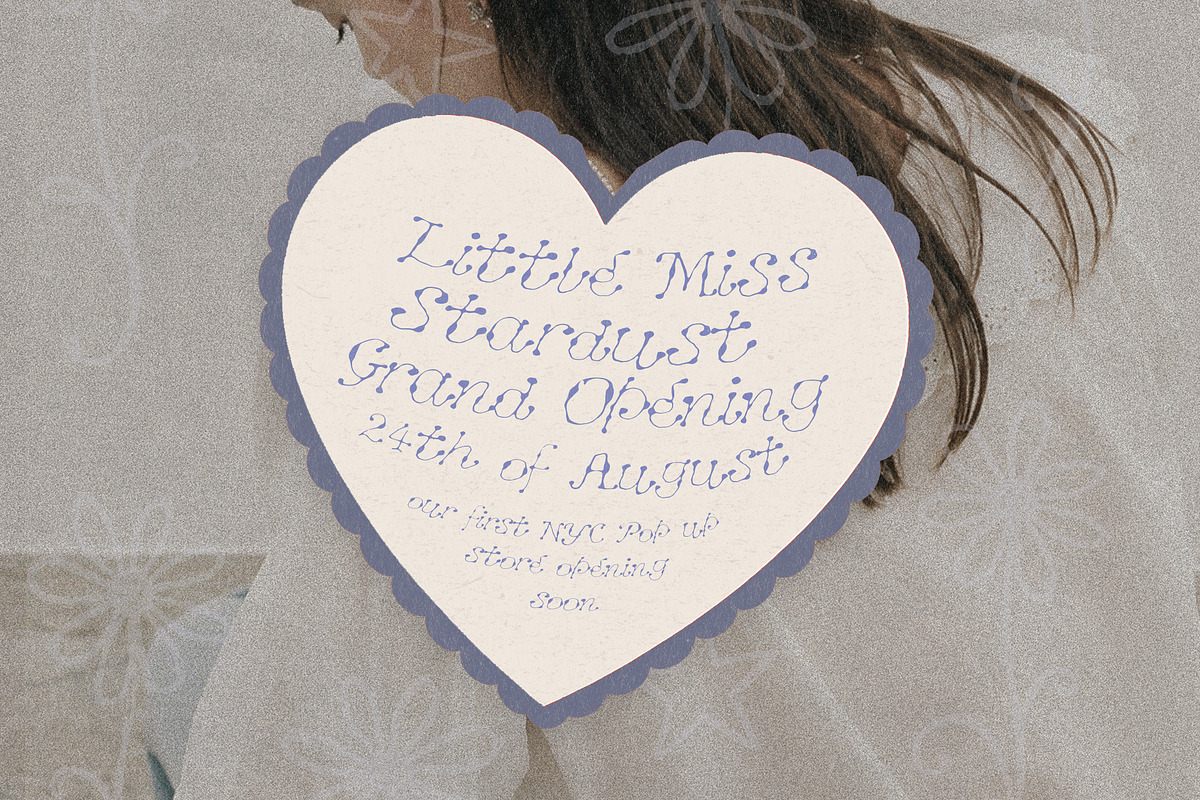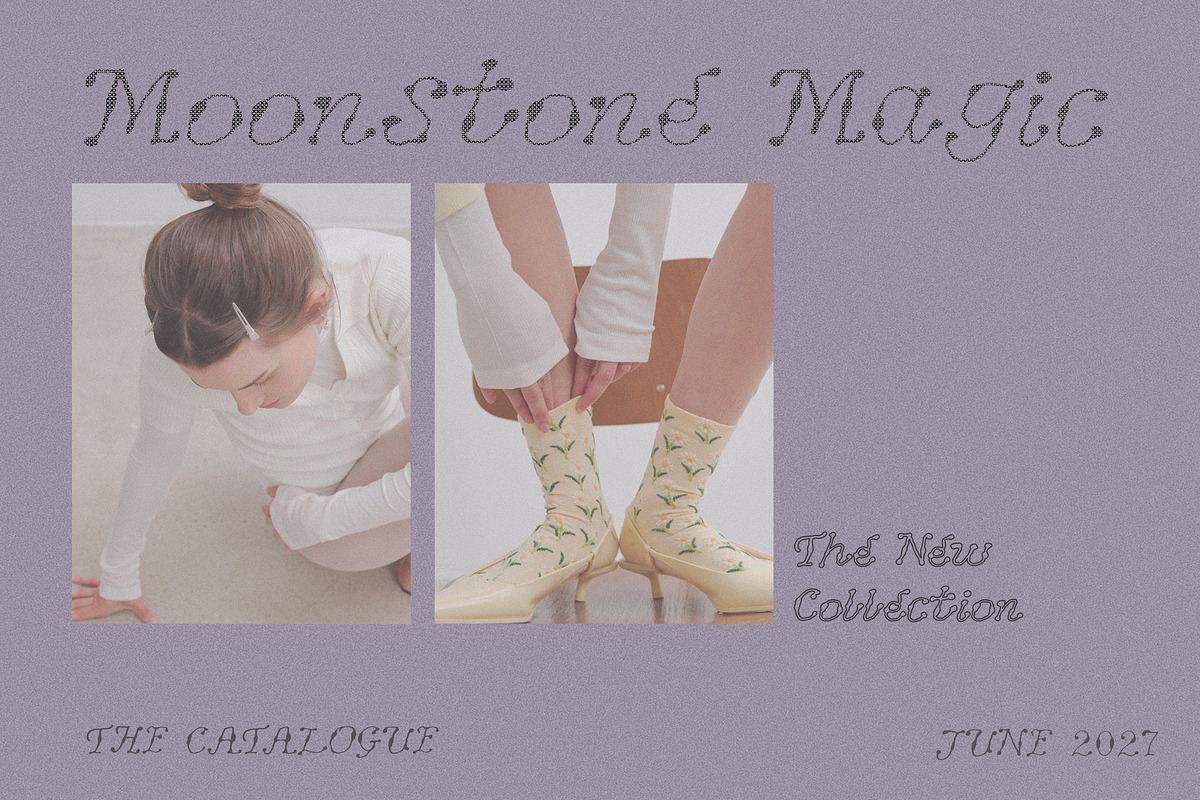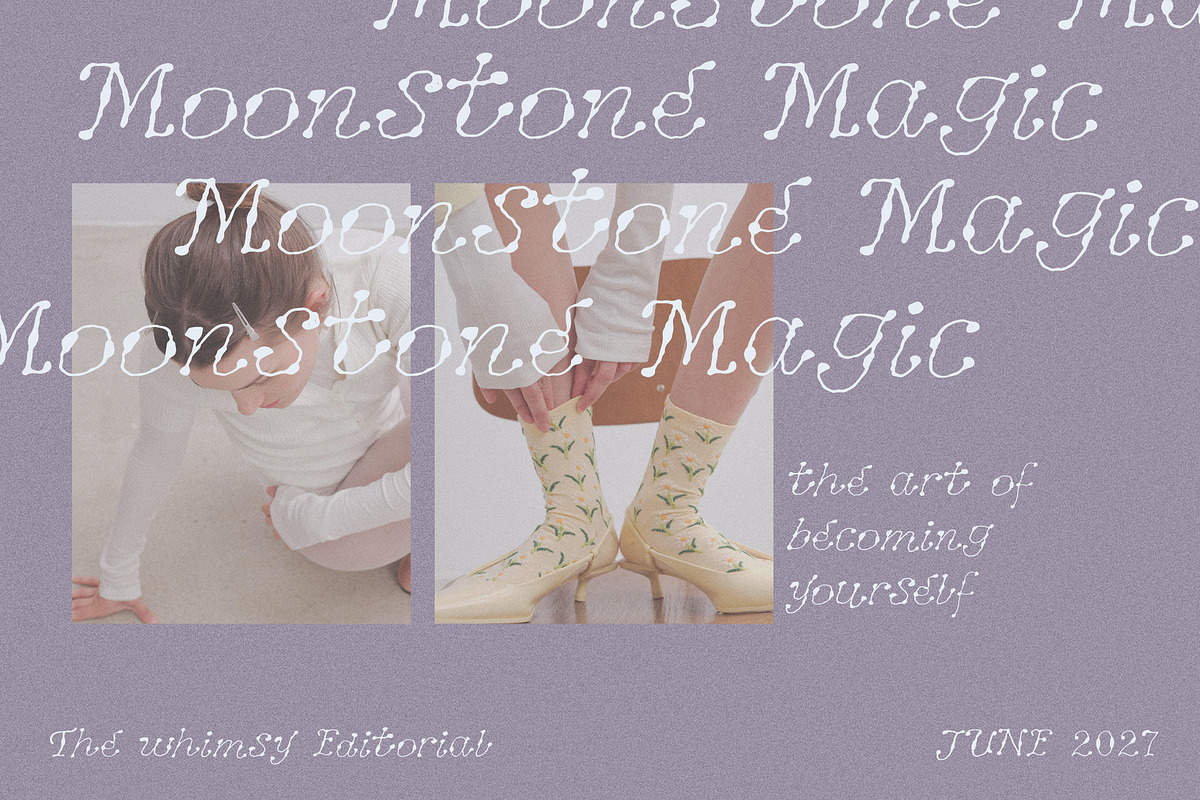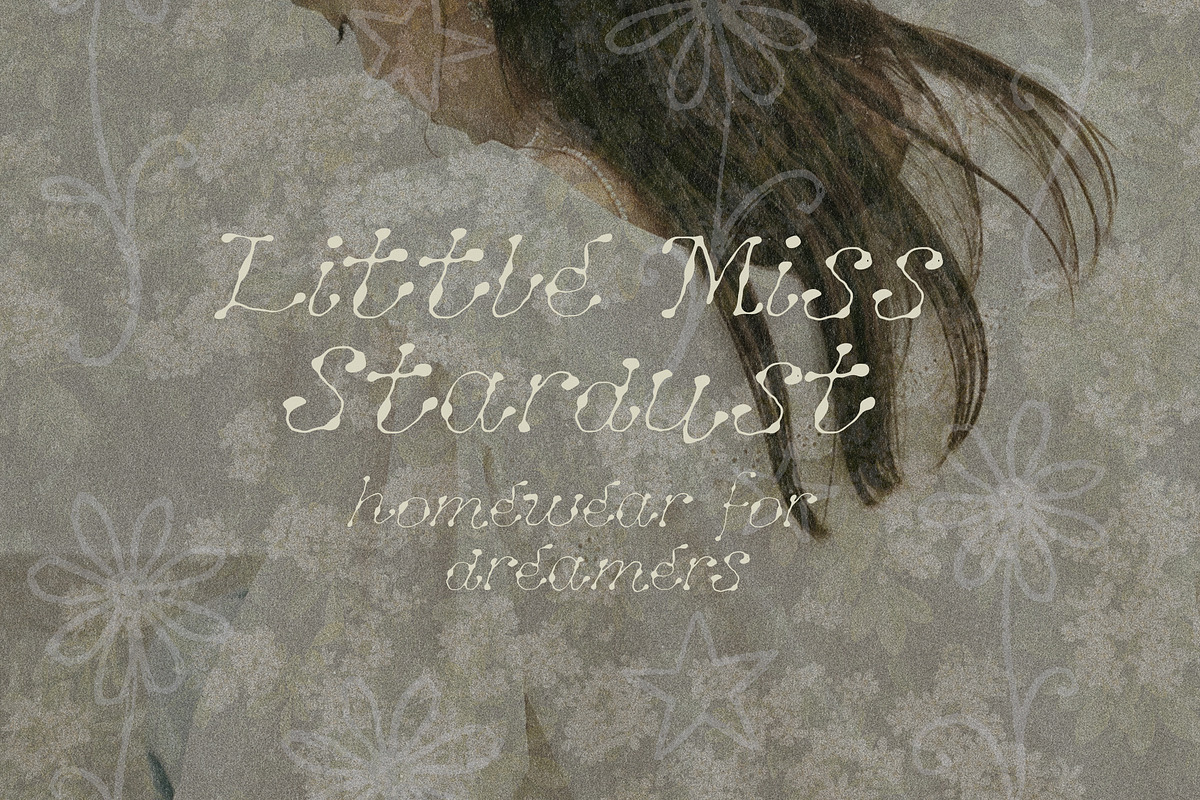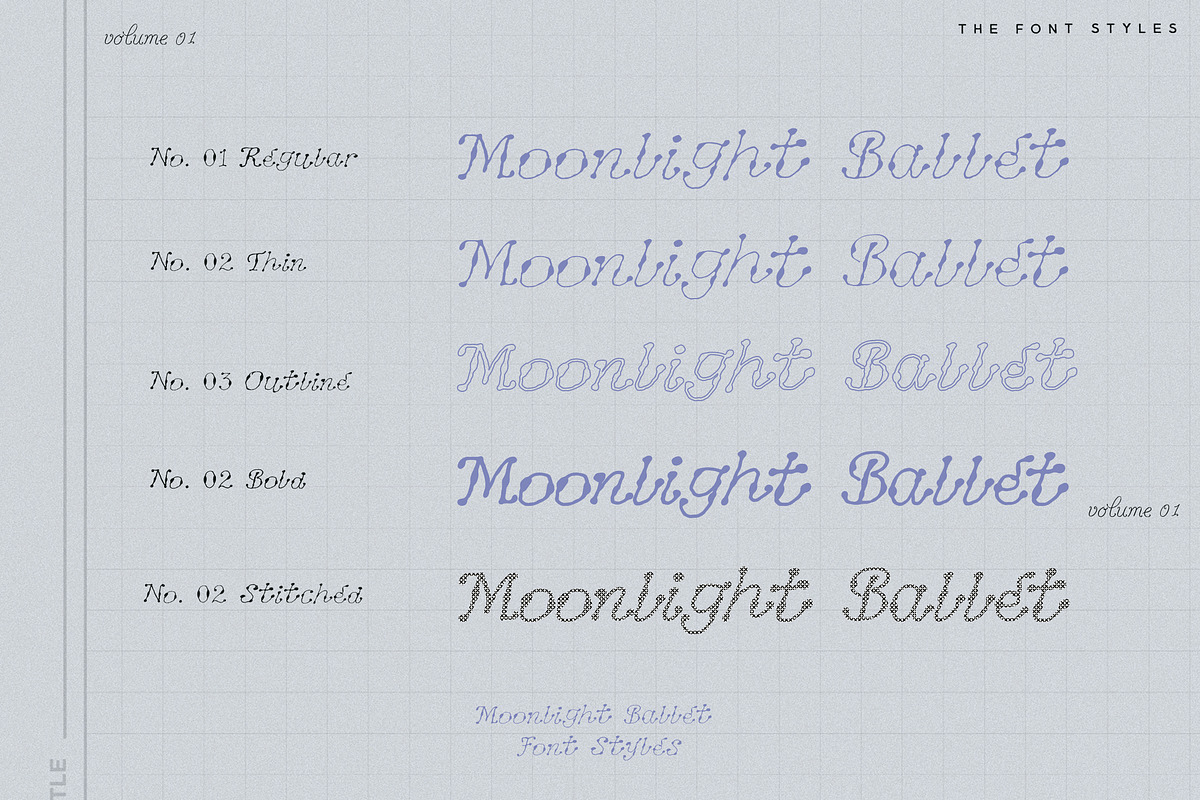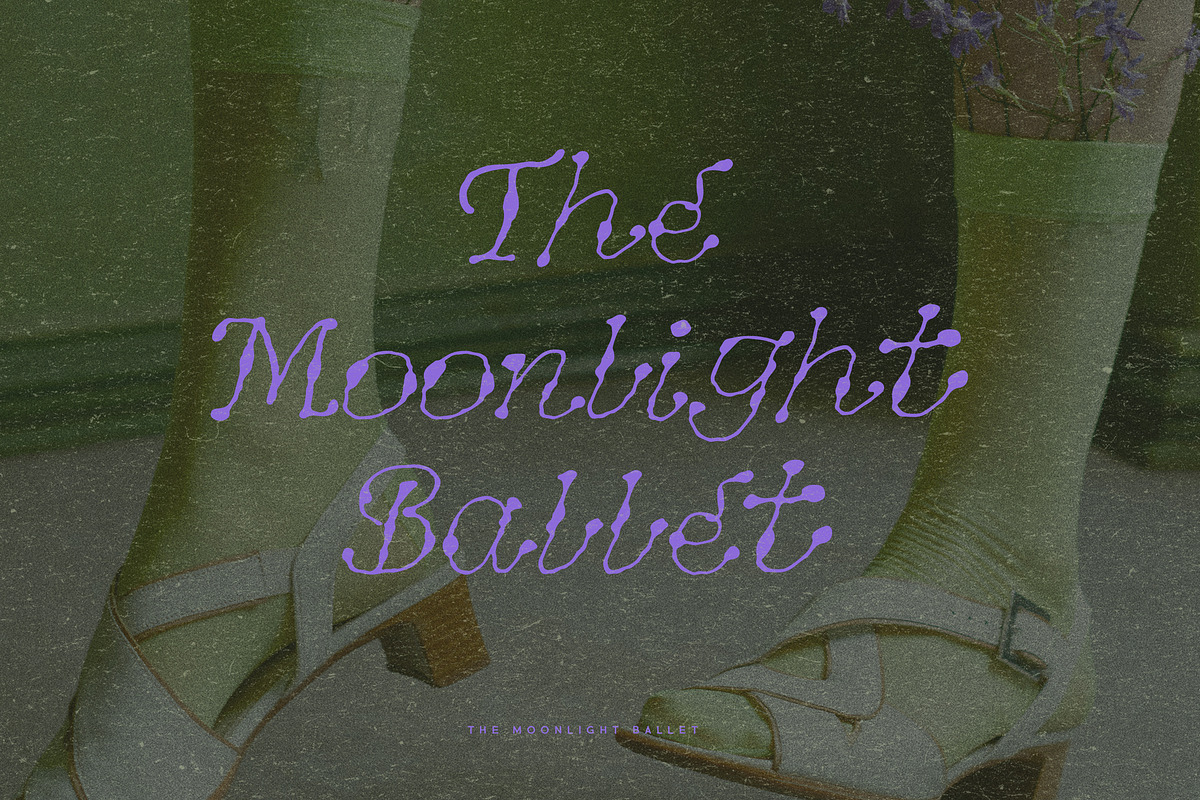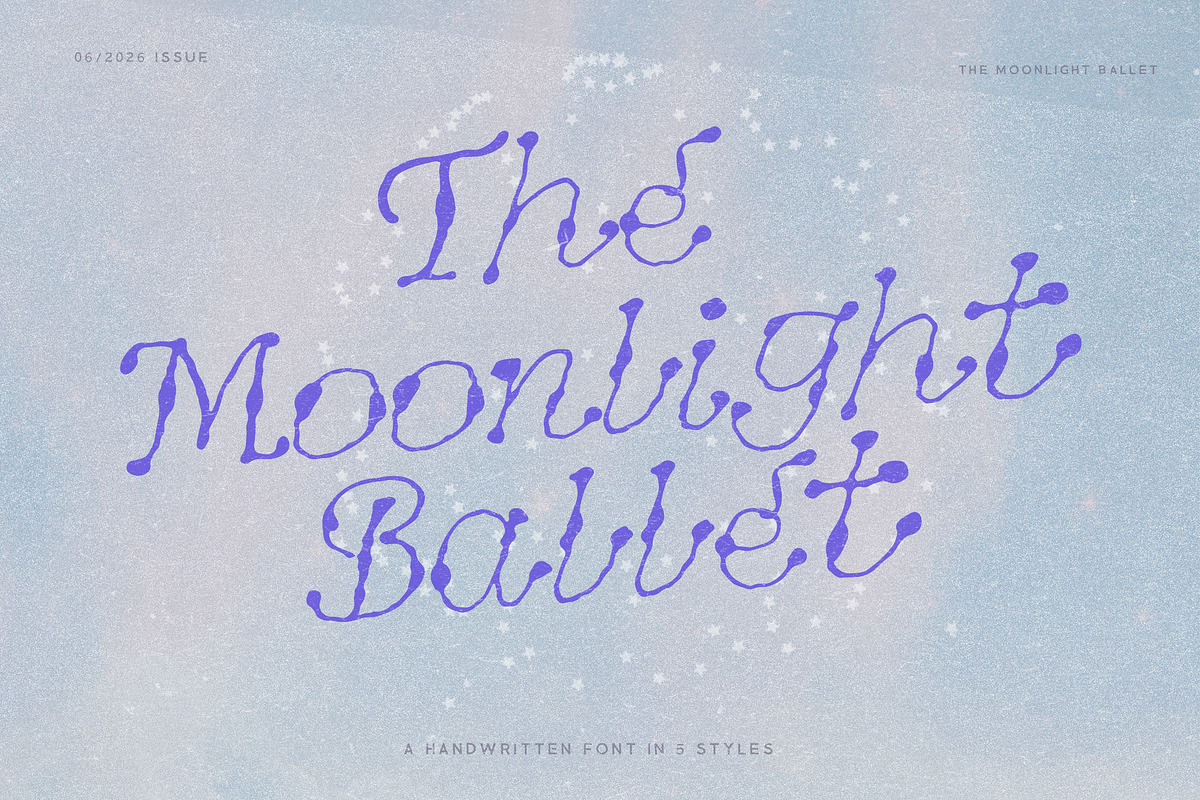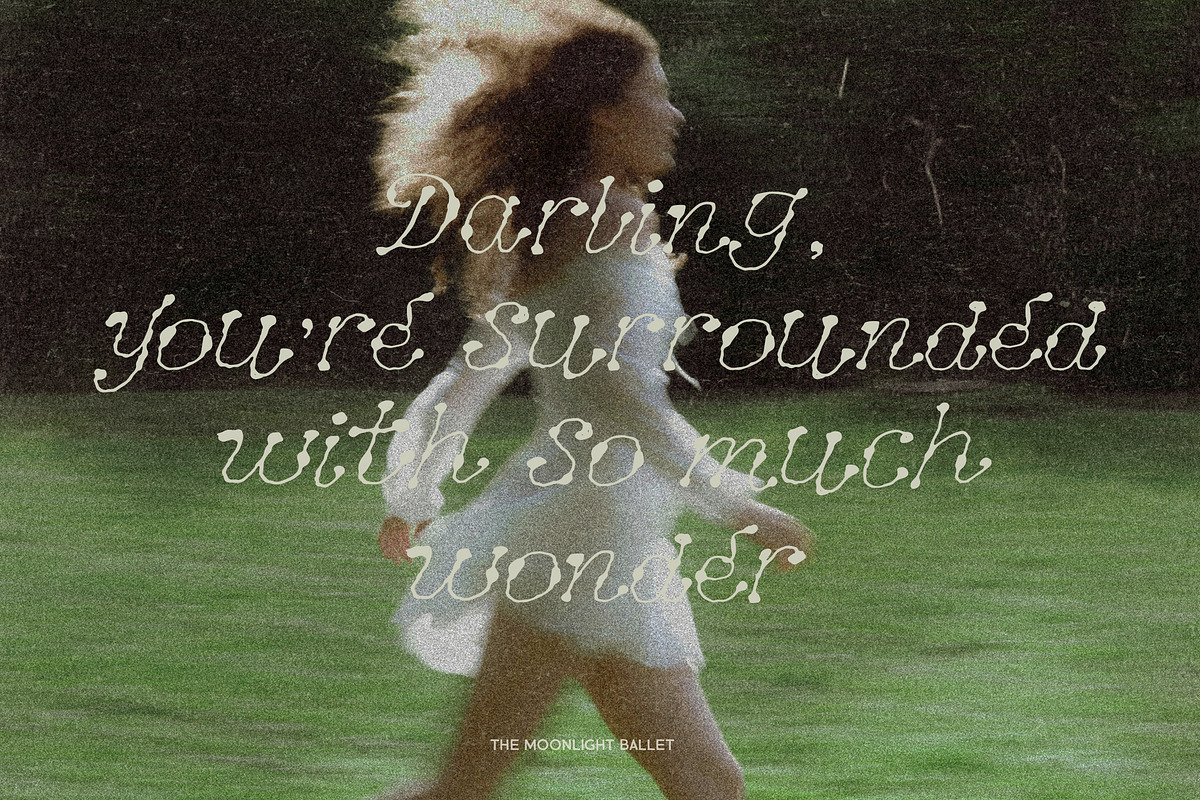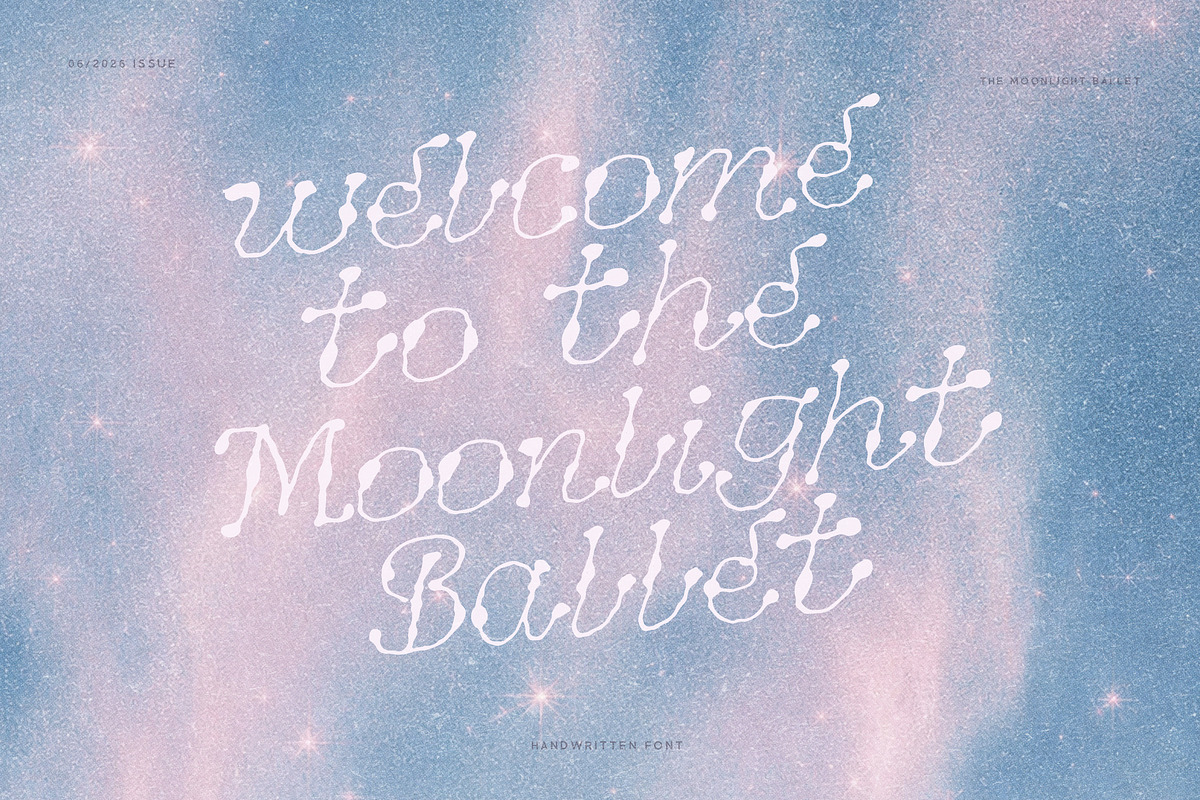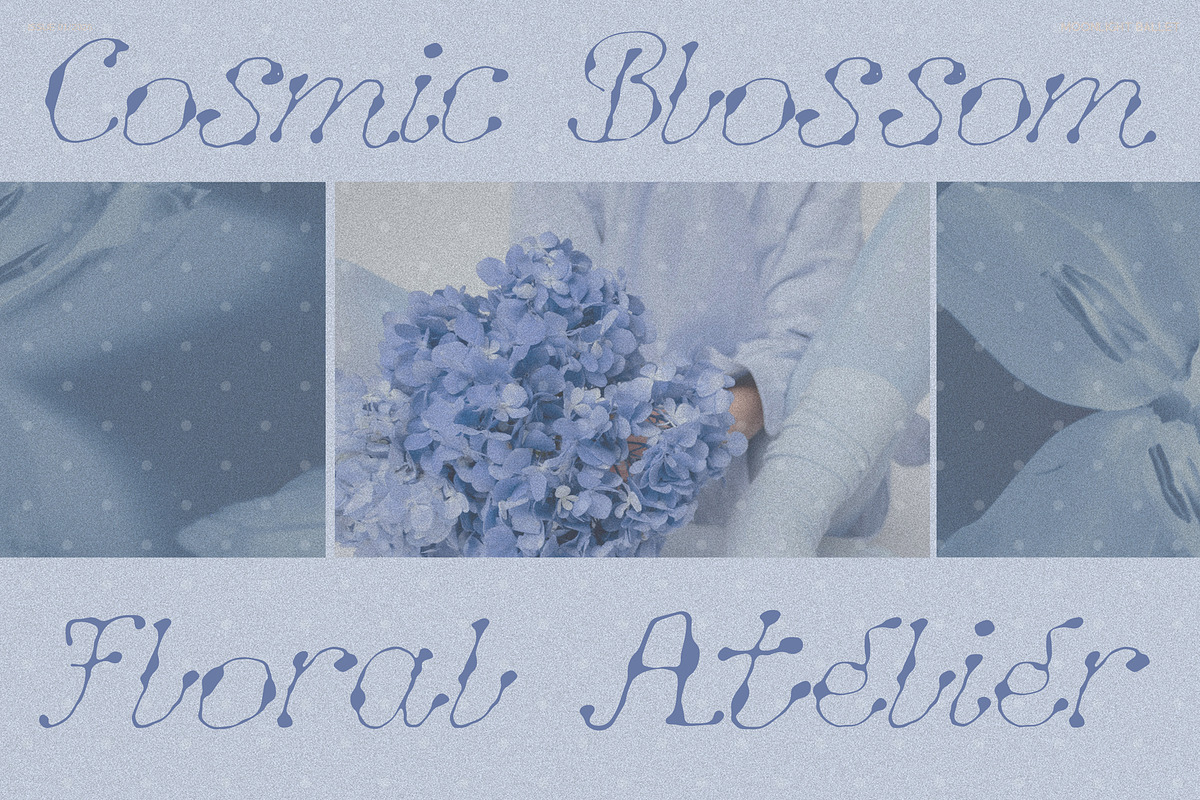
Whimsy Ink Drop Texture Script
Moonlight Ballet is a whimsical display font with a dreamy, celestial charm and a cool experimental edge. Inspired by gentle movement, playful letterforms and ink drops on paper, this font was carefully handwritten and comes in 5 versatile styles
With its rounded shapes, artistic rhythm, and unexpected detail, Moonlight Ballet is perfect for branding, logos, packaging, social media graphics, posters, invitations, stationery, merch designs, and creative editorial layouts. It has a soft and feminine feel, but still feels fresh, stylish, and unique.
It comes with a bold, regular, outline and thin version and also with a versatile pixelated cross stitch texture for even more creative variety.
Use Moonlight Ballet for projects that need a playful handwritten look, a whimsical display font, or a dreamy decorative typeface with personality. Whether you are designing for a boutique brand, a creative business, a wedding project, a poster shop, or a digital product, this font adds charm, movement, and a little bit of moonlit magic!